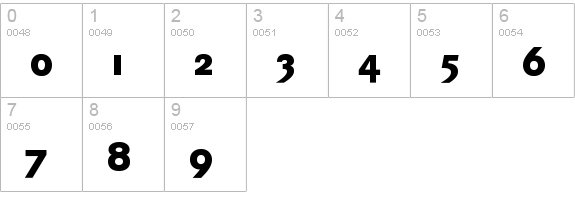
Corporate S BQ Expert Extra Bold Font Details
Corporate S BQ Expert Extra Bold is a strong, high-contrast variant in the Corporate typeface family \xE2\x80\x94 well suited to headlines, attention-grabbing titles, and strong calls-to-action.
Corporate S BQ Expert Extra Bold font is a modern and sleek typeface designed for corporate use. With its bold and authoritative appearance, this font is perfect for making a strong statement in any design project. Its sharp edges and clean lines give it a professional and polished look that will elevate your work to the next level. And the best part? Corporate S BQ Expert Extra Bold font is available for free download at FontsMarket.com. Simply visit the website and add this font to your collection without any cost. Don't miss out on this opportunity to enhance your designs with a high-quality typeface that exudes confidence and sophistication. Download Corporate S BQ Expert Extra Bold font today and take your projects to new heights!